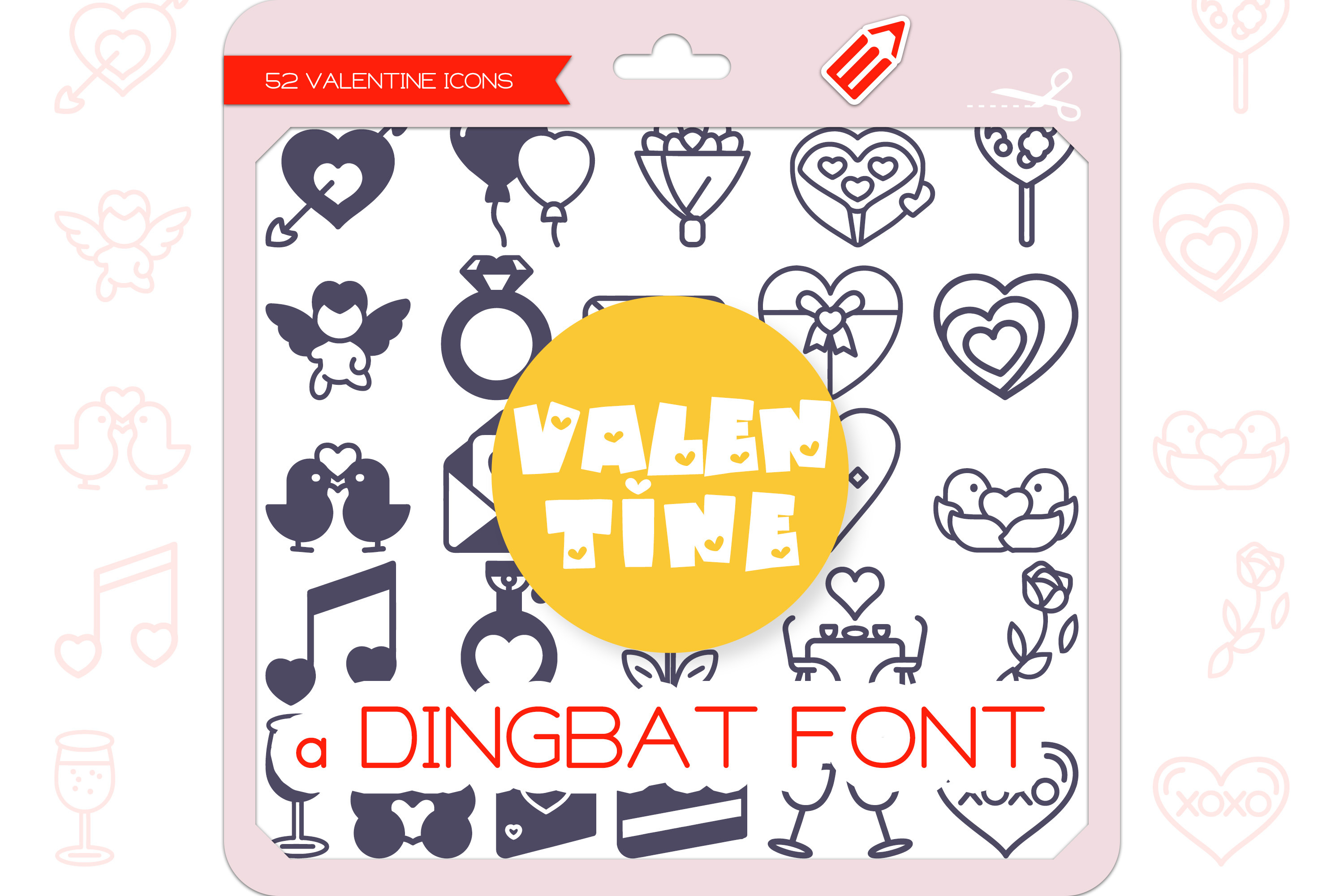
Valentine Icons - Dingbat Font
Valentine is a unique and cute dingbat font. It contains 52 icons in 2 styles (Outline & Filled-Outline). Add this font to your creative ideas and make your arts outstanding!
The Valentine Icons Dingbat Font featuring 26 things Arrow, Cupid, Balloons, Bouquet of Roses, Box of Chocolates, Candy Hearts, Diamond Ring, Envelope with Love Letter, Gift Box with Ribbon, Heart, Love Birds, Love Letter, Love Potion, Love Tattoo, Lovebirds Nest, Music Notes, Perfume Bottle, Red Rose, Romantic Dinner, Rose Petals, Sparkling Wine, Teddy Bear, Valentine's Day Card, Valentine's Day Cake, Wine Glasses, XOXO